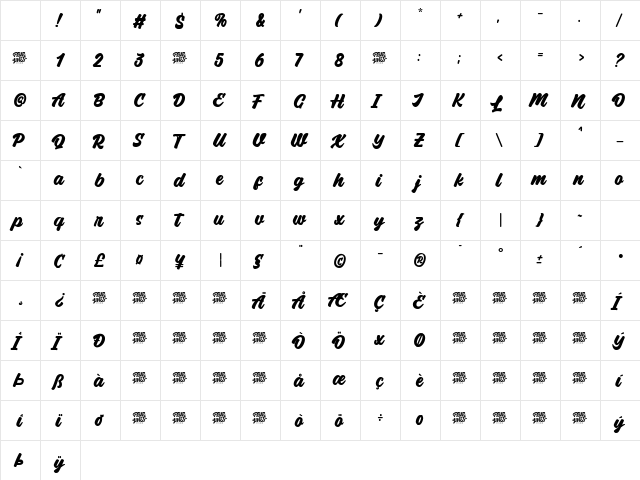
Milk Peach Clean is a composed and adaptable typeface that performs quietly and consistently across a wide range of design contexts.
Pro Tip: Use Milk Peach Clean in both headline and body roles to test its range before committing to a single application.